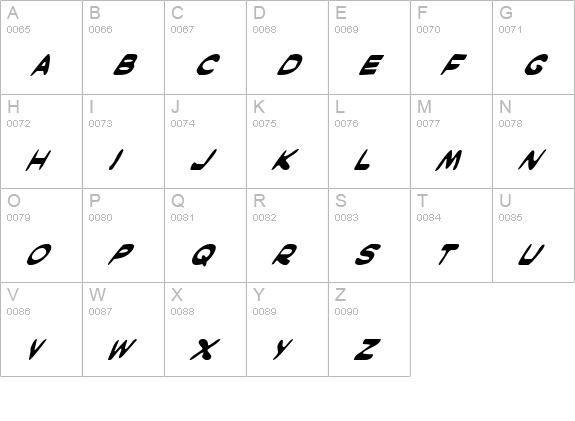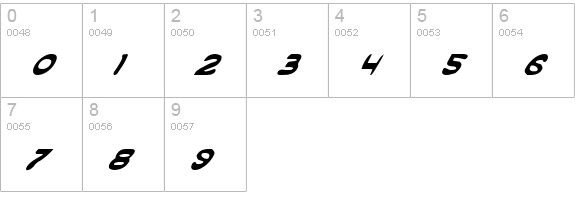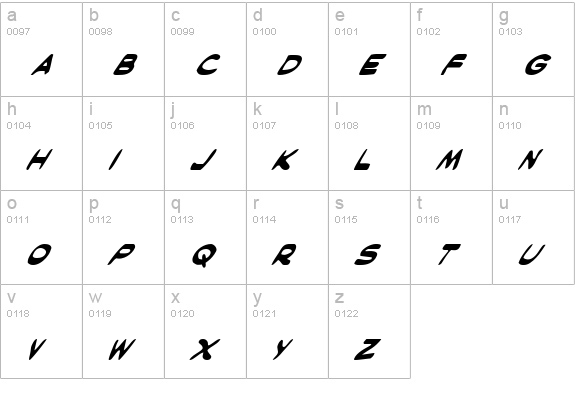
Masked Marvel Italic Font Details
Masked Marvel Italic is a distinctive, italic variant in the Masked typeface family \xE2\x80\x94 well suited to design and typography projects.
Introducing Masked Marvel Italic font, a captivating and enigmatic typeface that exudes an air of mystery and intrigue. With its sleek and elegant curves, this font commands attention and adds a touch of drama to any design project. The Masked Marvel Italic font combines the perfect balance between modern and classic elements, making it versatile for a wide range of creative endeavors. Whether used for branding, advertising, packaging, or editorial design, this font effortlessly captures the essence of sophistication and uniqueness. One of the most remarkable aspects of Masked Marvel Italic font is that it is available for free. Yes, you read that right! You can freely download this font and unleash your creativity without any constraints. Simply visit FontsMarket.com, the ultimate destination for font enthusiasts, and indulge in the beauty and elegance of Masked Marvel Italic font. With its distinctive slanted style, Masked Marvel Italic font adds a touch of rebellion and daring to your designs. Each letter has been carefully crafted to maintain legibility while infusing a sense of excitement and adventure. This font truly stands out from the crowd and elevates your projects to new heights. The versatility of Masked Marvel Italic font is further enhanced by its extensive character set, which includes uppercase and lowercase letters, numbers, punctuation marks, and special symbols. This allows for seamless integration into various design applications, ensuring that your message is conveyed with clarity and impact. Whether you're a graphic designer, typographer, or simply someone who appreciates the power of a well-designed font, Masked Marvel Italic font is a must-have addition to your collection. Its captivating and distinctive aesthetic will captivate your audience and leave a lasting impression. Embrace the power of Masked Marvel Italic font and set your creativity free. Download this extraordinary typeface today at FontsMarket.com and unlock a world of endless design possibilities.